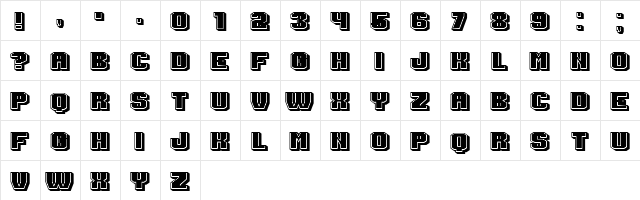
Extradition Filled Regular
Design Context for Extradition Filled Typeface
Extradition Filled is a composed and adaptable typeface that performs quietly and consistently across a wide range of design contexts.